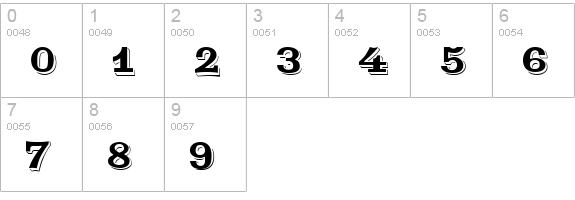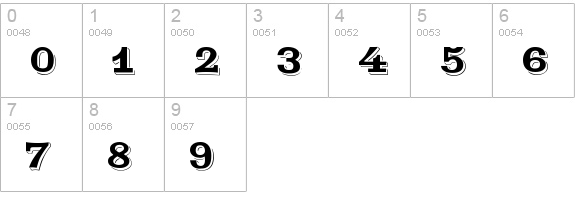
GoldMine Font Details
Introducing GoldMine font - a luxurious and elegant typeface that exudes sophistication and charm. With its ornate details and stylish curves, GoldMine font is perfect for adding a touch of class to any design project. Whether you're working on invitations, branding, or packaging, this font will elevate your work to the next level. Best of all, GoldMine font is available for free download at FontsMarket.com. That's right, you can enhance your projects with this stunning font without having to spend a dime. So why wait? Download GoldMine font today and start creating beautiful designs that shine with elegance and refinement.